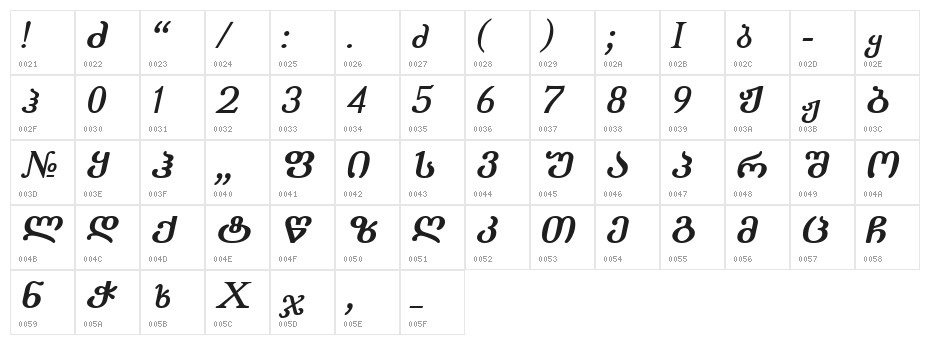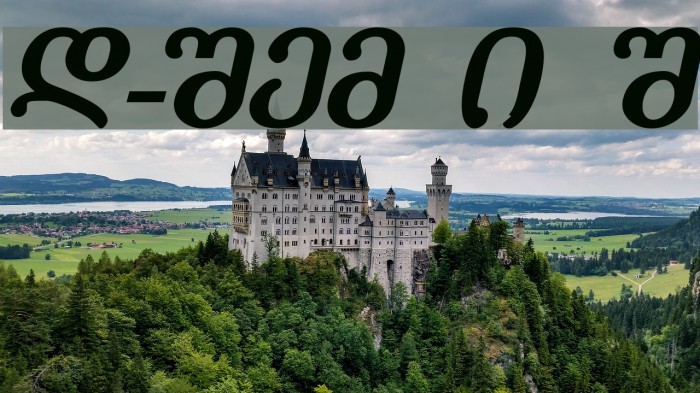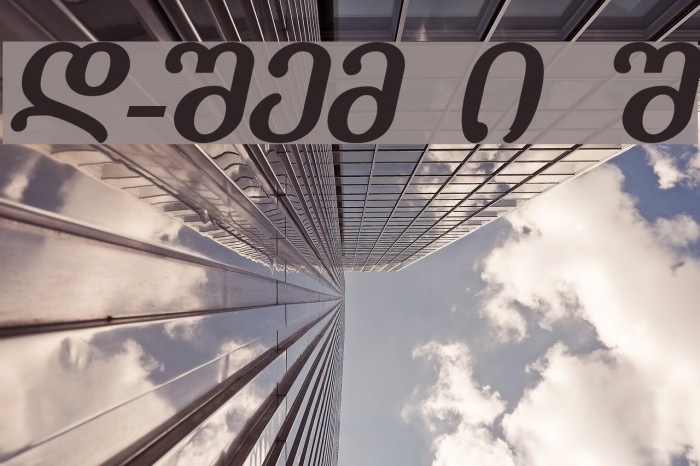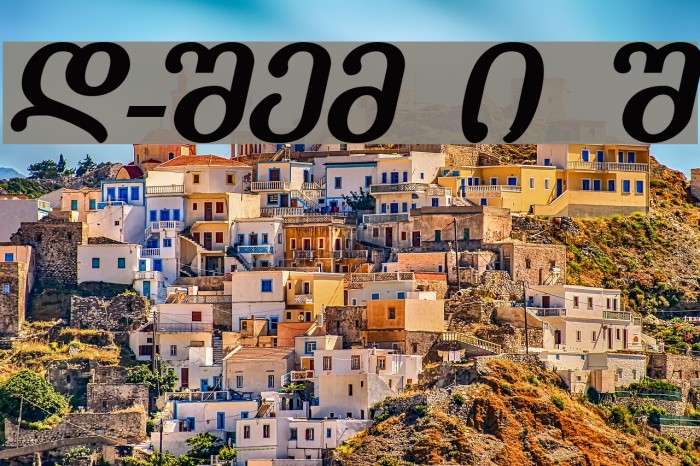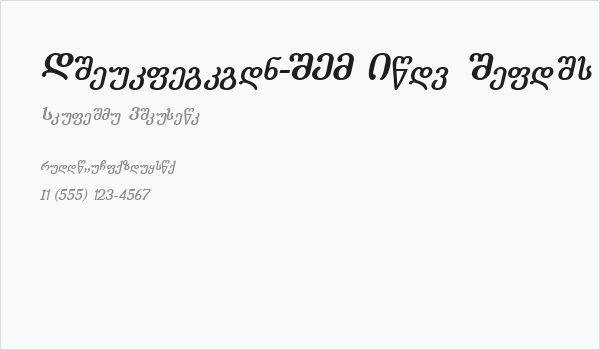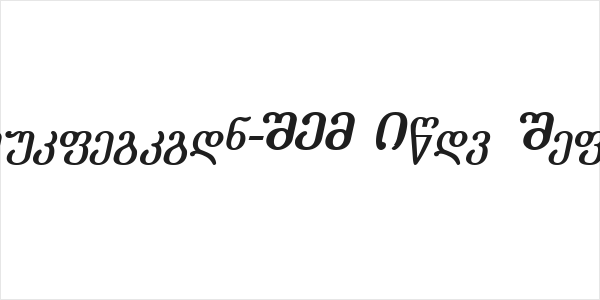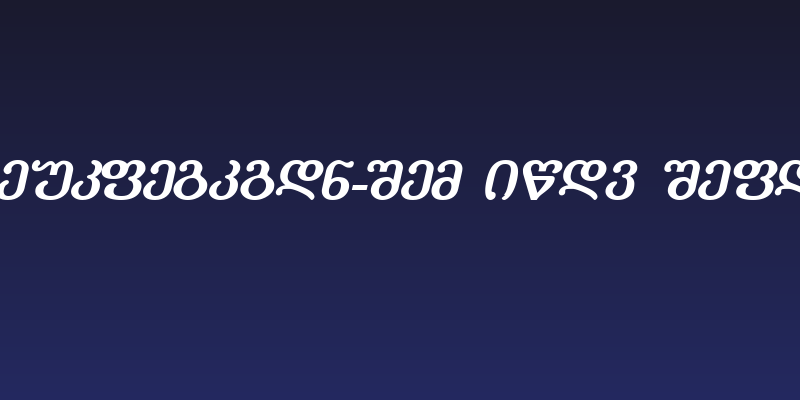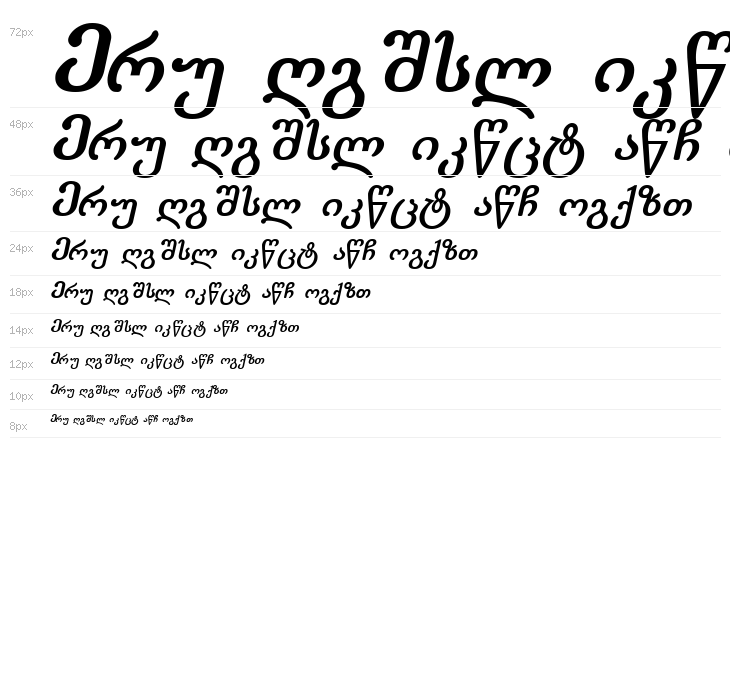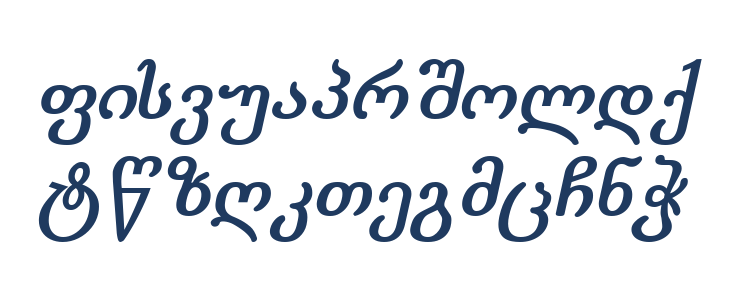
Literaturuly-ITV Bold Italic Font
Literaturuly-ITV Bold Italic Description
This font features a bold and italicized style with a distinct script-like appearance. The characters are elegantly curved, showcasing a fluid and dynamic form that adds a sense of movement and sophistication. The strokes are thick and consistent, providing a strong visual impact. The numerals and special characters maintain the same stylistic approach, ensuring uniformity across all elements. The font's design is both artistic and functional, making it suitable for a variety of creative applications.
| Proposed Projects | Ideal for branding, invitations, greeting cards, and artistic projects requiring a touch of elegance. |